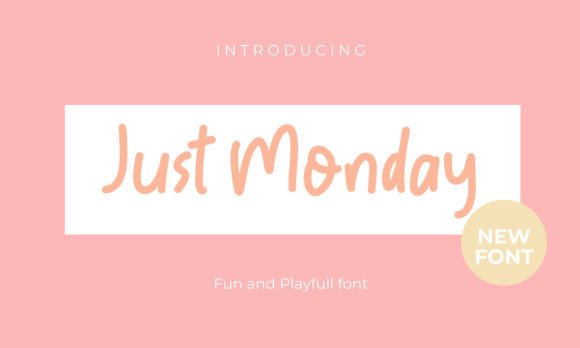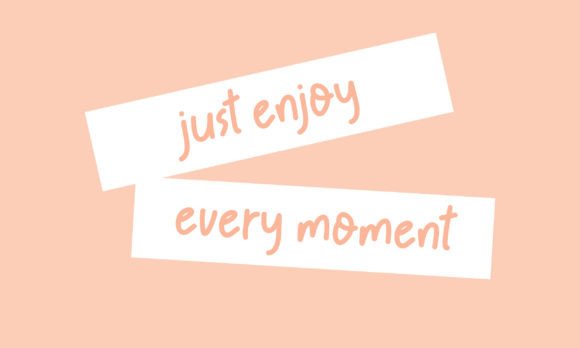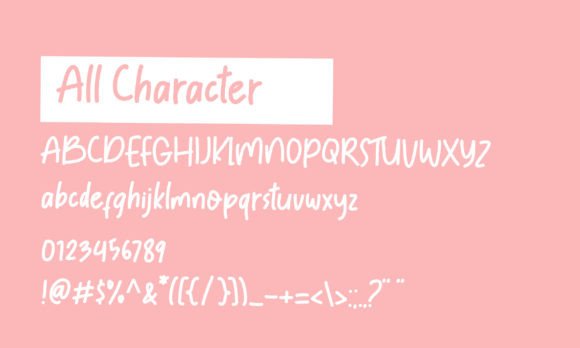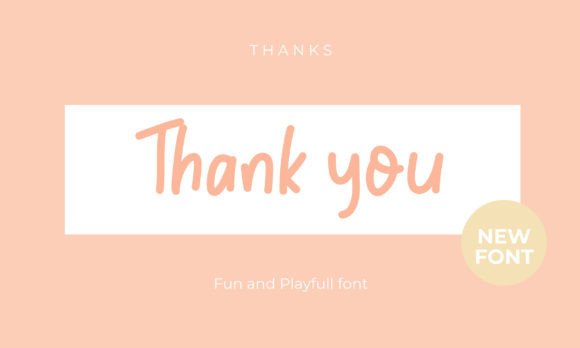
Just Monday
About Just Monday
Just Monday is a cute and quirky handwritten font with an incredibly friendly feel. Whether you’re looking for fonts for Instagram or handwritten scripts for DIY projects, it will turn any creative idea into a true piece of art!